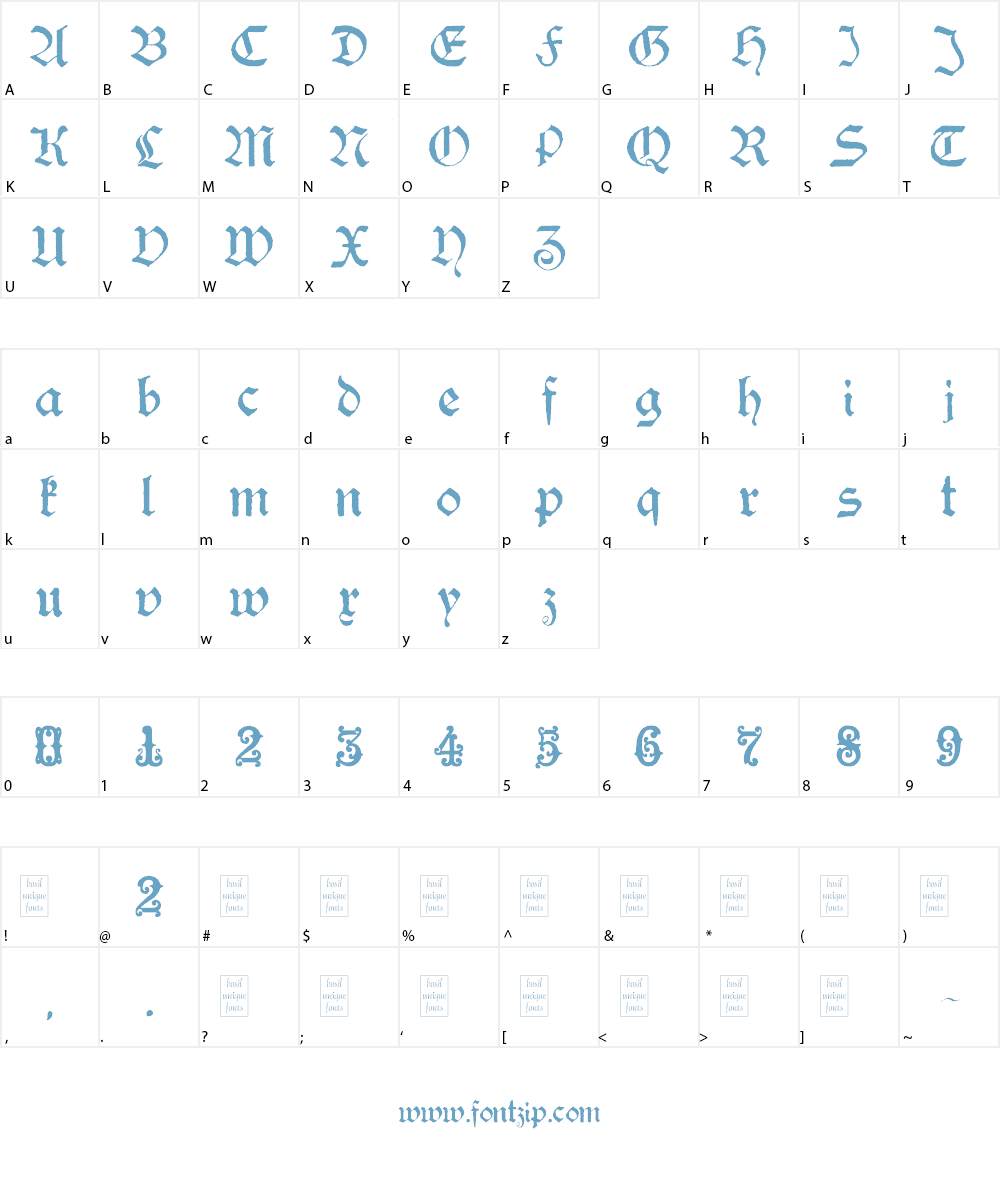
bu Gothic Hybrid is just that, a hybrid of several old styles including a little 17th century germanic calligraphy. This one is just an experiment as I haven't made any fonts for quite a while. Free to use in commercial endevours but I still keep all rights to it. Hope you can use it for something. Enjoy.